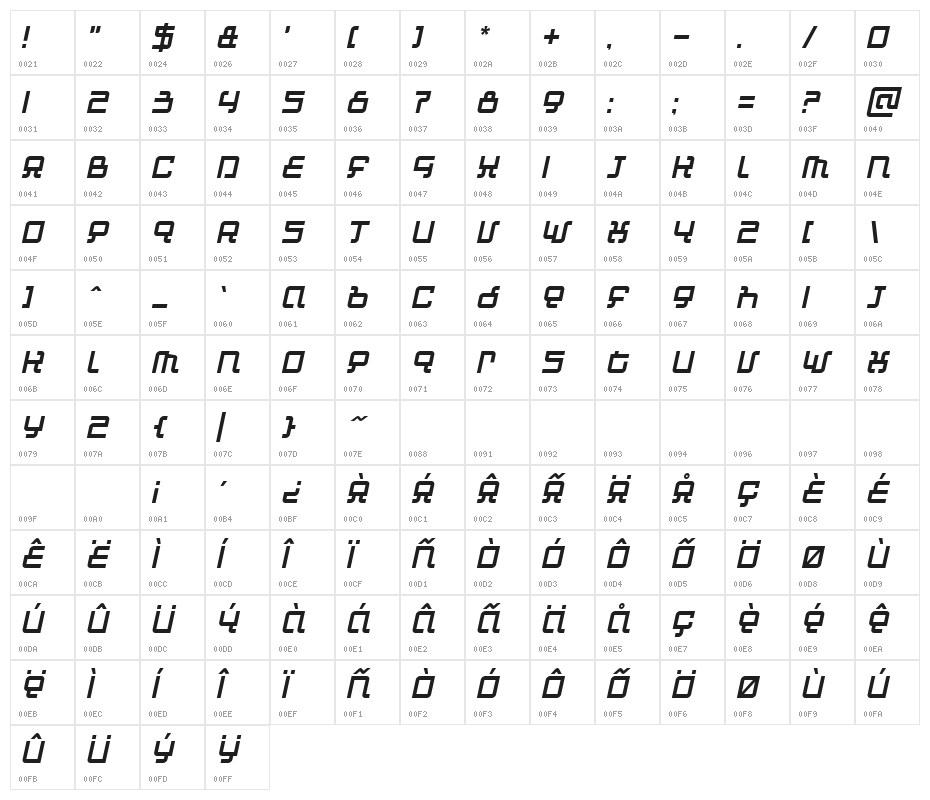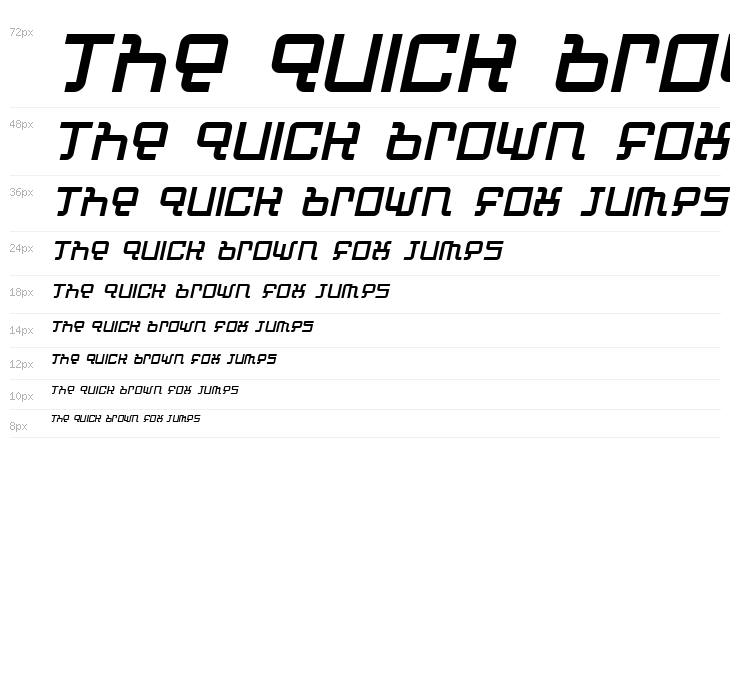
Automind Italic Font
Automind Italic Description
This font features a futuristic and dynamic design, characterized by its italicized and angular letterforms. The strokes are bold and consistent, giving it a strong presence. The characters have a distinct geometric style with sharp edges and a slight slant, enhancing its modern and tech-inspired appearance. The numbers and special characters maintain the same angular and bold aesthetic, ensuring uniformity across all glyphs. This font is ideal for projects that require a contemporary and edgy look, such as technology branding, sports team logos, or sci-fi themed designs.
| Use Case | Logos, Headlines |
| Proposed Projects | Ideal for technology branding, sports logos, sci-fi themes, and modern advertising. |